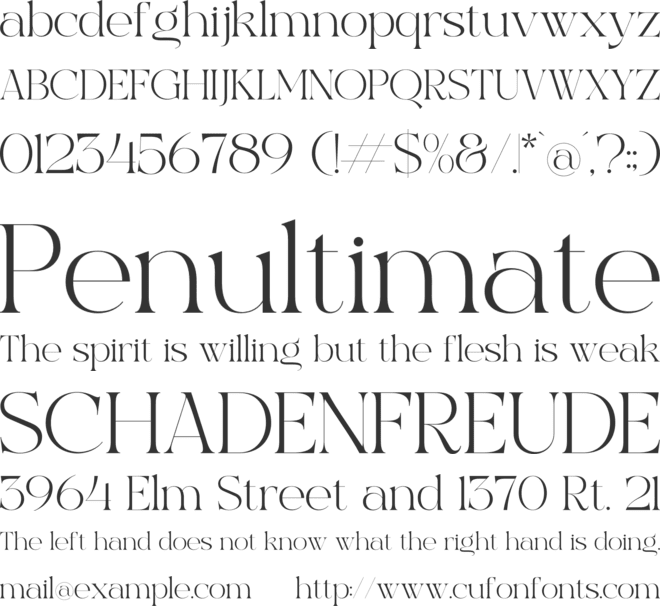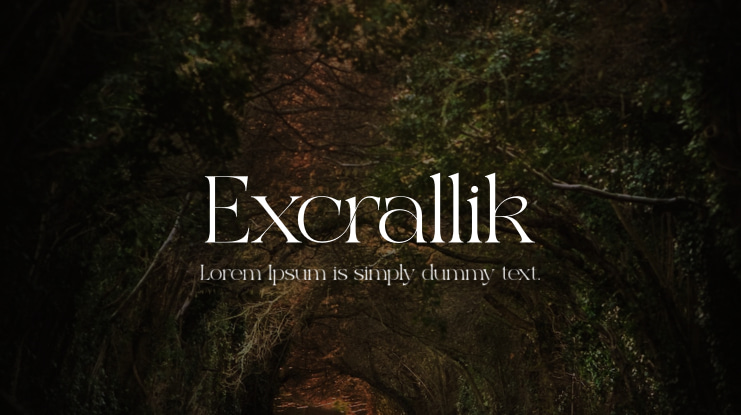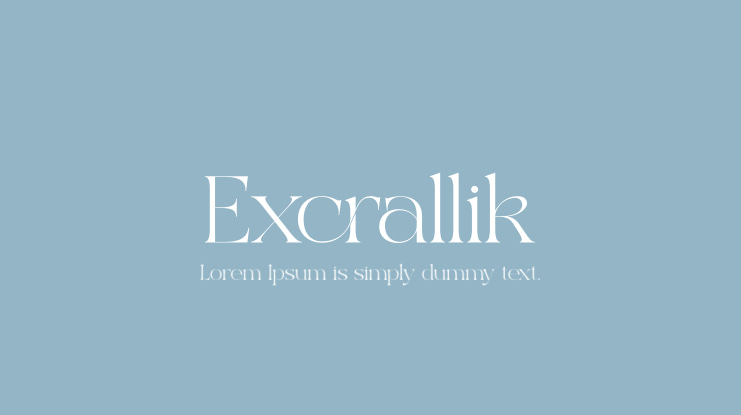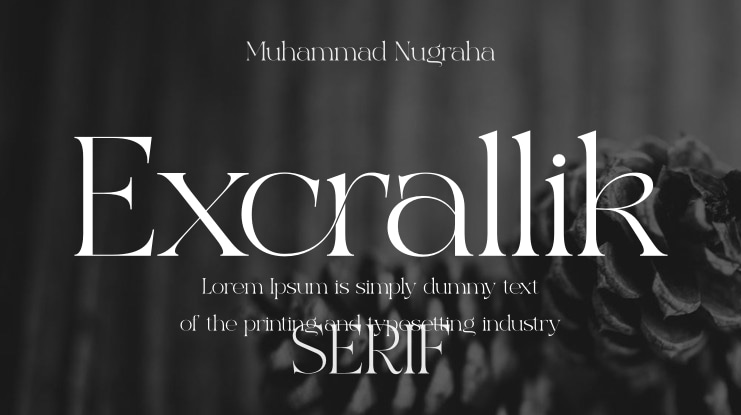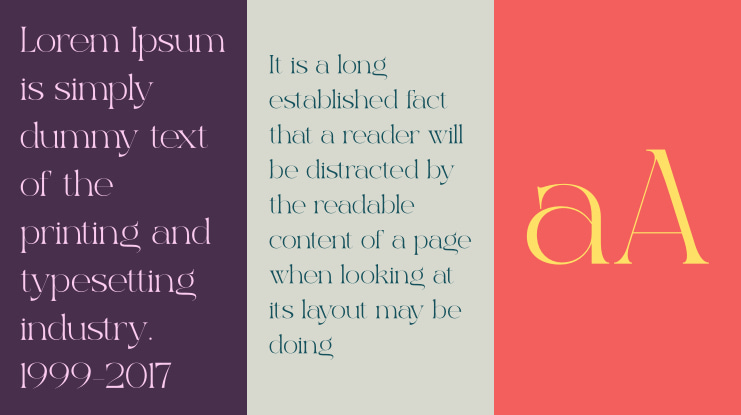
Excrallik Font
Excrallik Modern Serif is a versatile font suitable for various projects such as logos, branding, homeware designs, product packaging, quotes, posters, and more. By using this font, you agree to the Product Usage Agreement: - This demo font is for PERSONAL USE ONLY. NO COMMERCIAL USE ALLOWED! - Purchase the full version and commercial license at: https://denustudios.com/excrallik-modern-serif/ - Corporate use requires a Corporate license. - For custom licenses, contact us at: https://denustudios.com/contact/ - Donations are appreciated via PayPal: https://www.paypal.com/paypalme/denustudios Explore more fonts at: https://denustudios.com/ Thank you. ============================================================================ INDONESIA: By installing this font and agreeing to these terms, you acknowledge and agree to the following conditions of font usage: - The demo font is for "Personal Use" only, not for commercial purposes that generate profit. - Purchase a commercial license at: https://denustudios.com/ - Using the font for any form of commercial use without permission is strictly prohibited. - For Corporate/Company use, acquire a CUSTOM LICENSE. - Unauthorized commercial use under a "Personal Use" license will result in an EXTENDED LICENSE fee or 100 times the desktop license price. - I accept font licensing before usage. - No post-usage licensing acceptance. If caught using the font for commercial purposes without permission, and then purchasing a license afterward, I will not accept the license. For information on required licensing, contact us at:  Thank you.